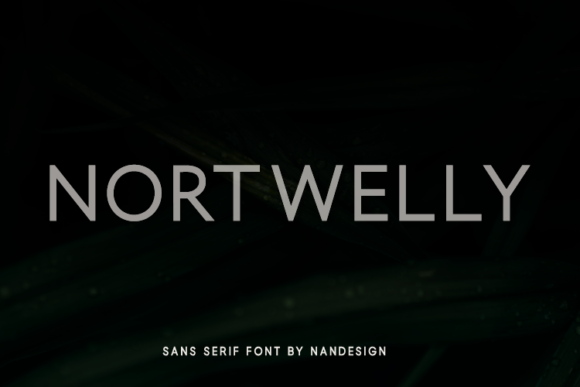
Introducing Nortwelly Font, the minimalist masterpiece that will transform your designs into works of art. This sans serif typeface exudes sophistication and simplicity, effortlessly elevating your creations to new heights.
Nortwelly's clean lines and harmonious curves dance across the page, drawing the eye and captivating the imagination. Its versatility knows no bounds, making it the perfect choice for everything from sleek logos and captivating headlines to elegant invitations and stylish brochures.
Unleash your creativity with Nortwelly and witness the transformative power of minimalism. Let its understated beauty elevate your designs to new heights, leaving a lasting impression on those who behold them.
Key features:
- Sans serif typeface
- Modern and minimalist aesthetic
- Incredibly versatile, suitable for a wide range of projects
- Perfect for logos, headlines, invitations, brochures, and more
Created by Nan Design, Nortwelly Font is a testament to the power of simplicity. Embrace its allure and watch your designs blossom into masterpieces that speak volumes with minimal effort.